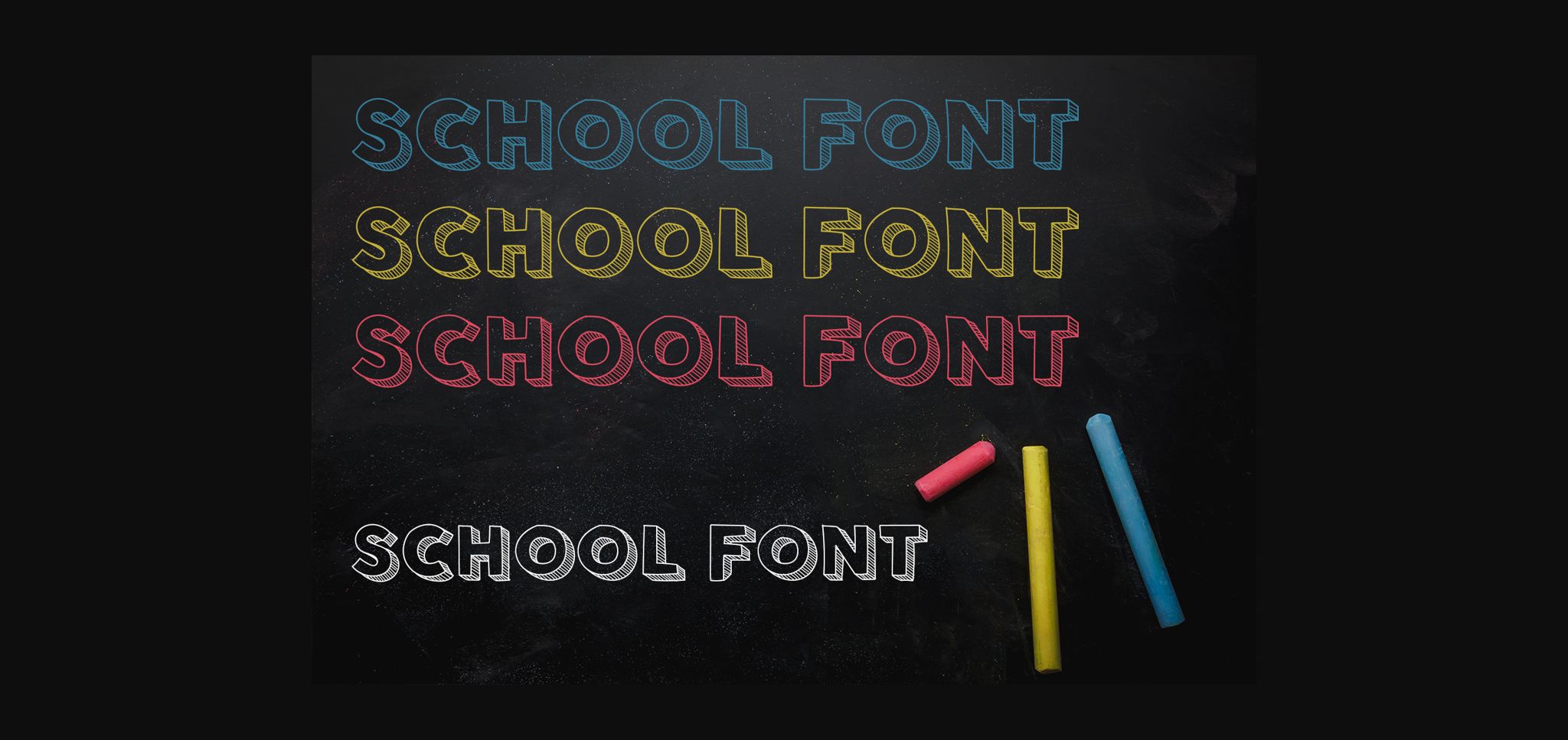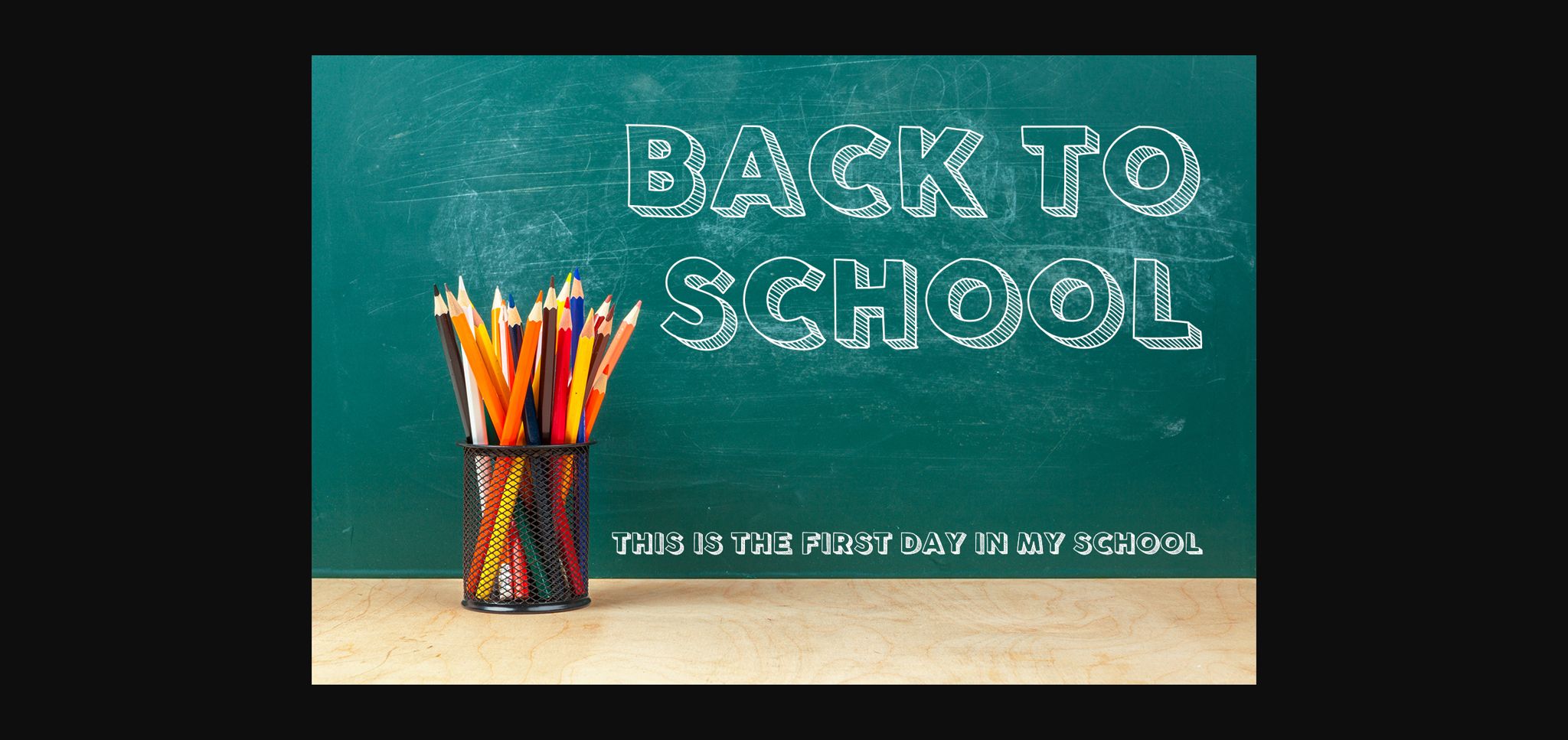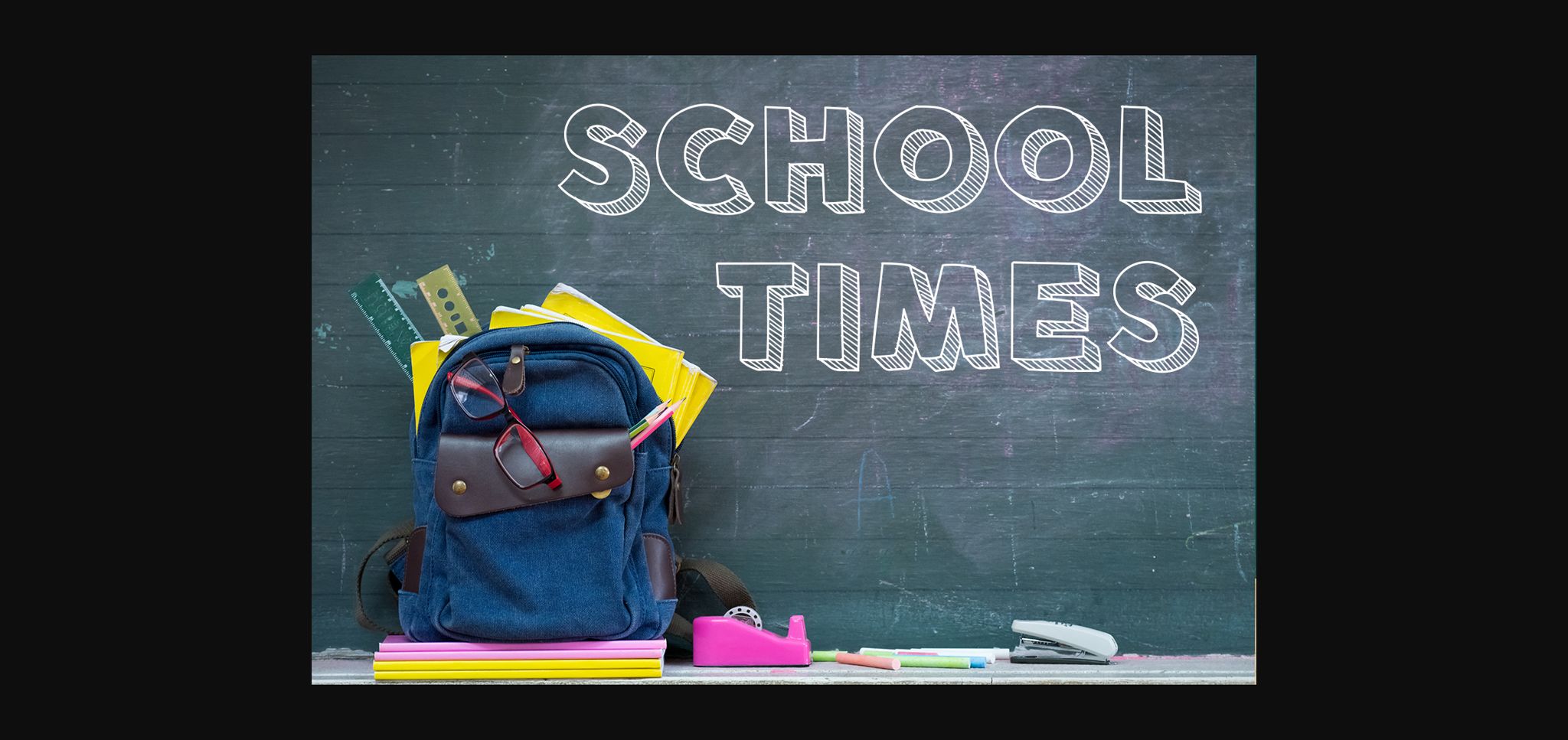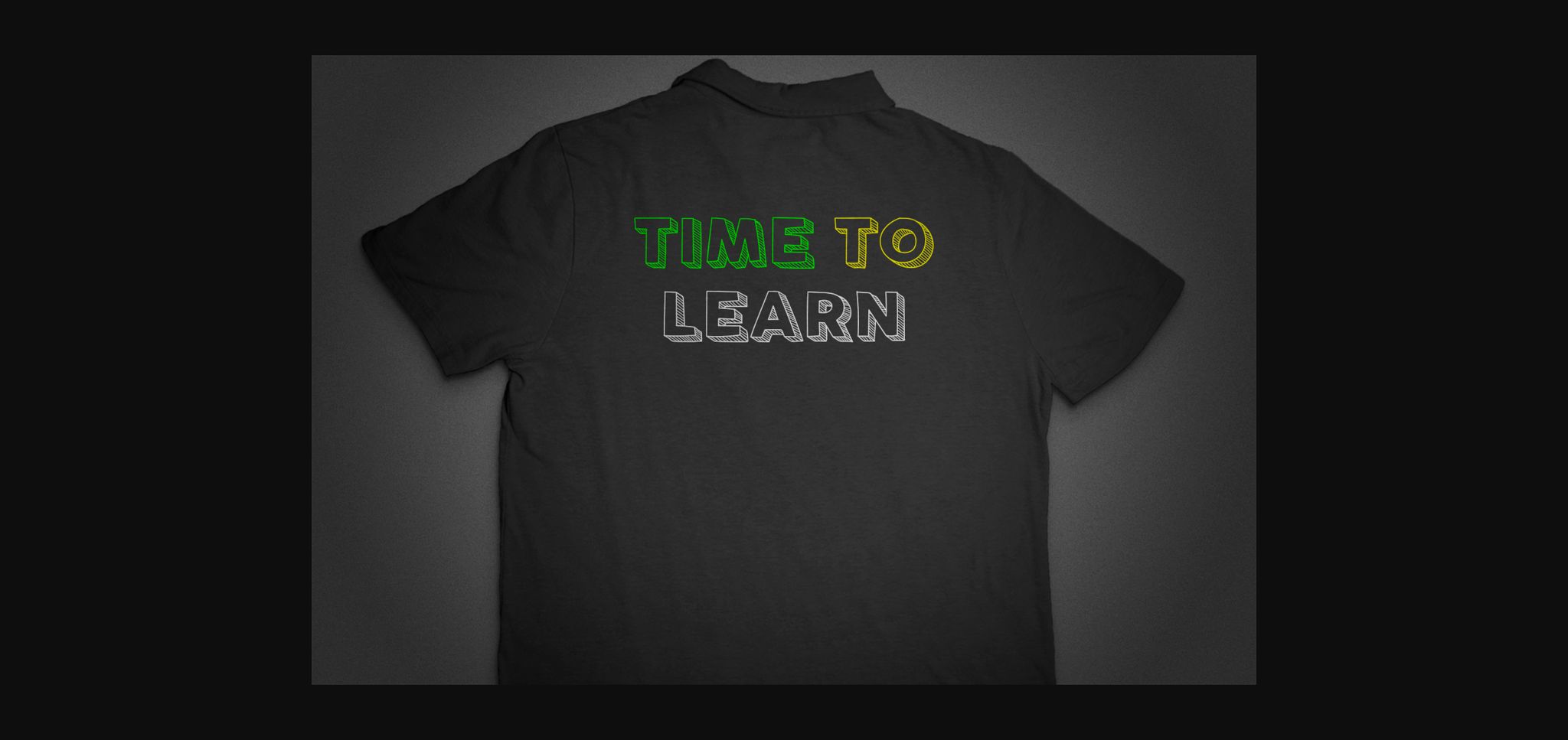
About School Font
School embodies fun, quirkiness and authenticity. This enchanting sans serif font will turn any creative idea into a true standout. Get creative with its childlike playfulness, and use it to brighten up any kids and school project!